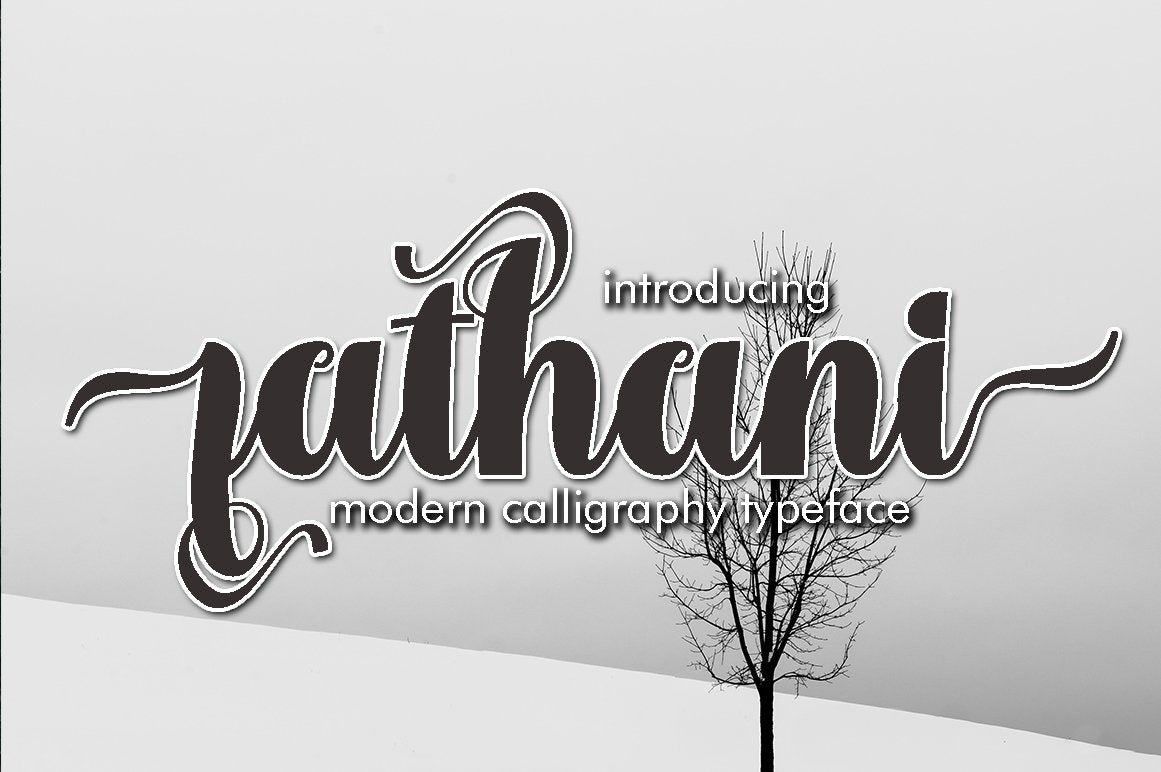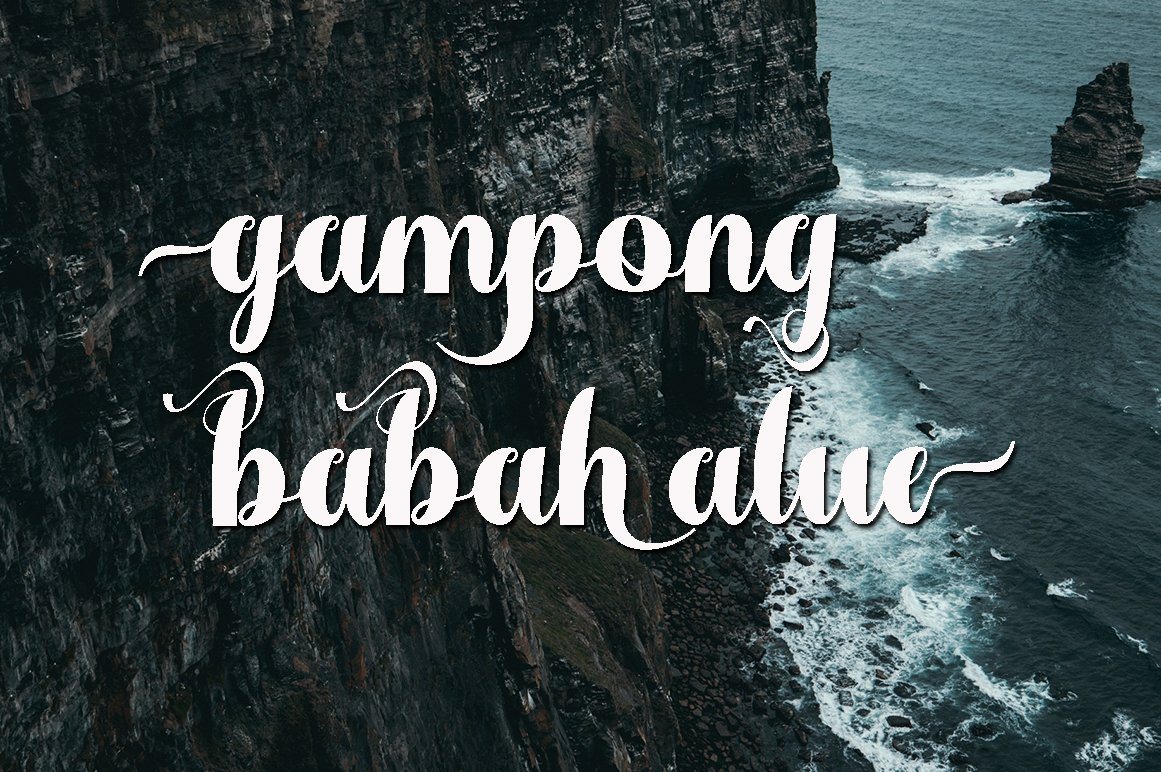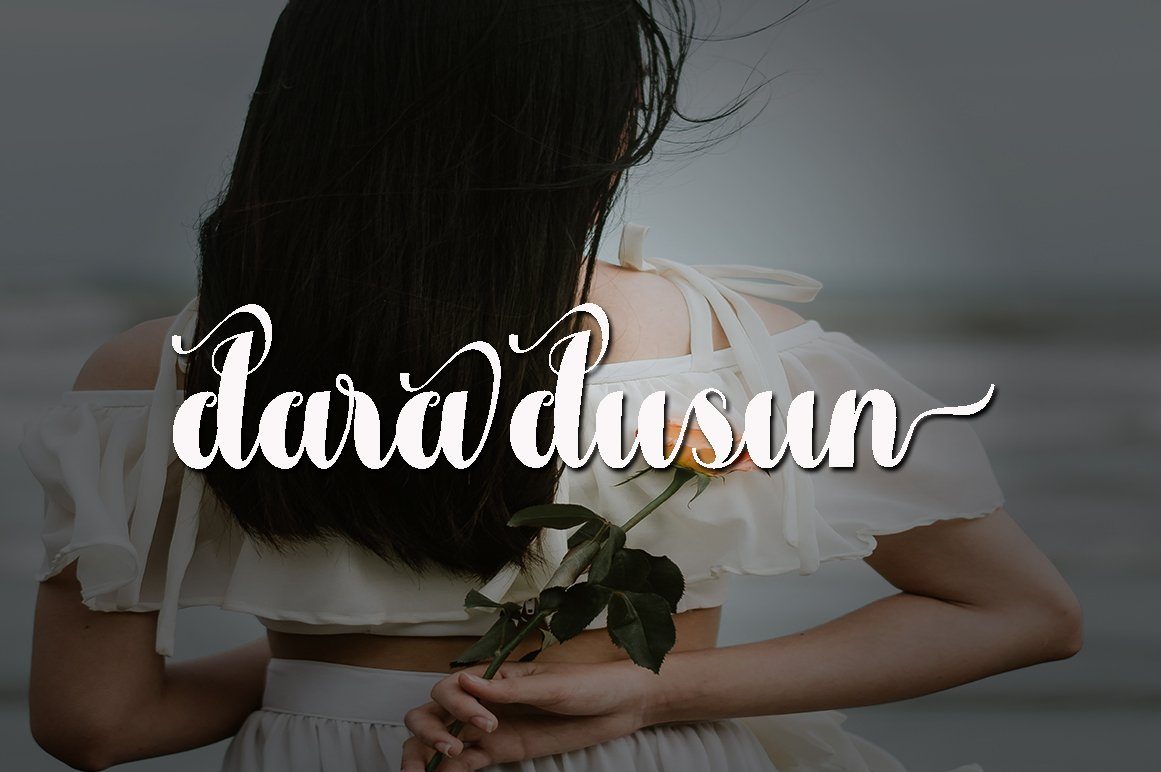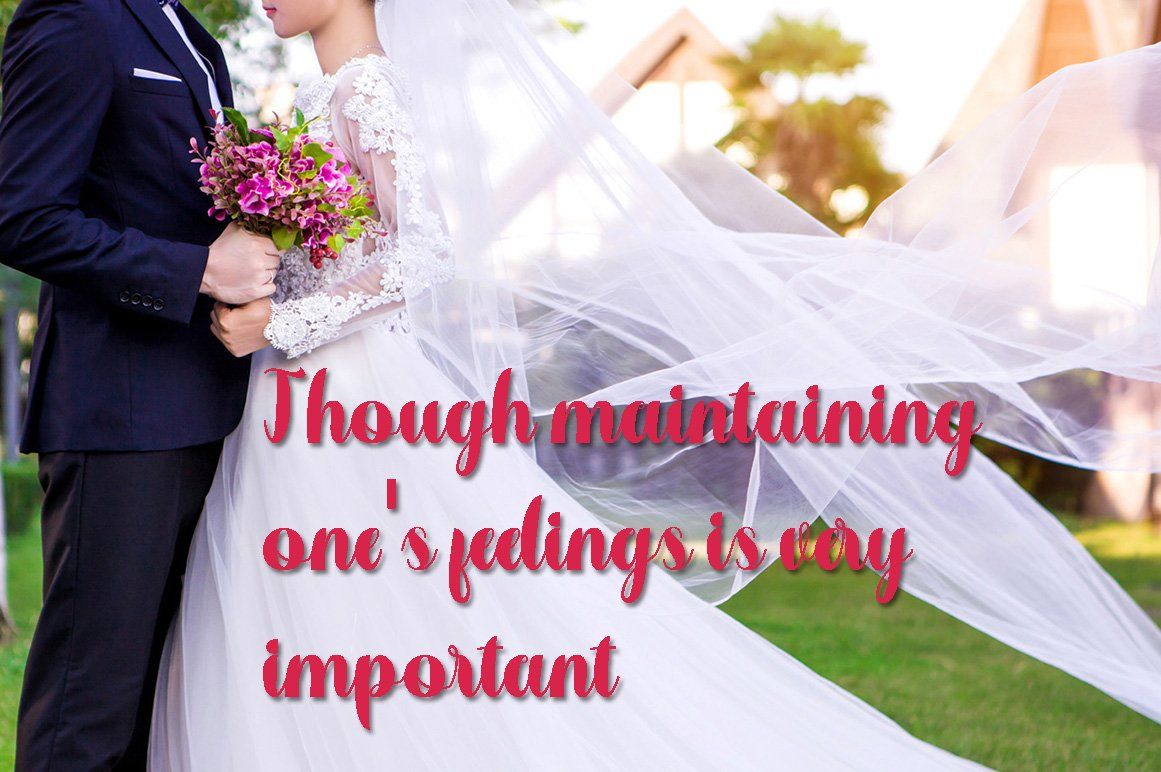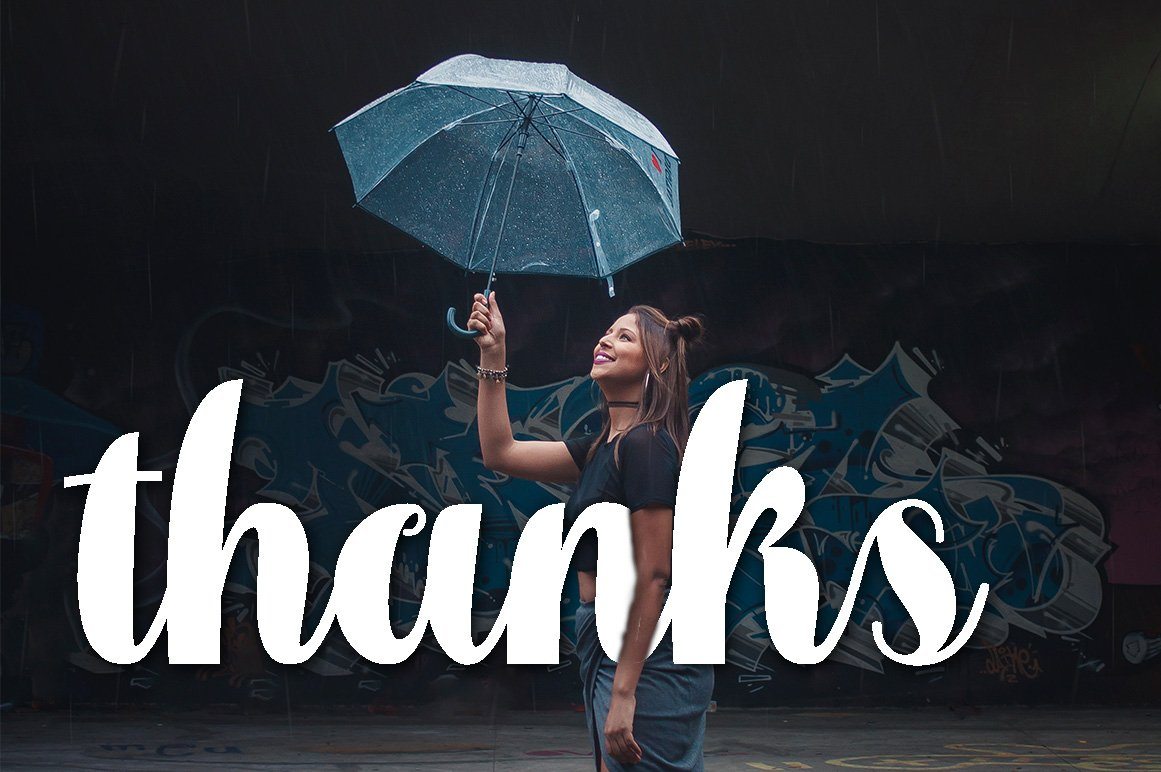
Fathani
About Fathani
Fathani Modern Calligraphy. This font was designed by handwriting, and it has a modern and unique forms of calligraphy, the writing style is very natural. The Features of this fonts is; Standart ligatures Stylistic Alternates Contextual Alternates Stylistic sets File font Loveline Include; Fathani OTF Fathani TTF Fathani PUA Unicode (Private Use Areas) Programs that support in this font is a Photo Shop, Adobe Illustrator, Adobe Indesign, Corel Draw and Microsoft Office. Can be used for various purposes.such as headings, logos, wedding invitation, t-shirt, letterhead, signage, lable, news, posters, badges etc. To enable the OpenType Stylistic alternates, you need a program that supports OpenType features such as Adobe Illustrator CS, Adobe Indesign & CorelDraw X6-X7 Fathani Modern Calligraphy. This font was designed by handwriting, and it has a modern and unique forms of calligraphy, the writing style is very natural. The Features of this fonts is; Standart ligatures Stylistic Alternates Contextual Alternates Stylistic sets File font Loveline Include; Fathani OTF Fathani TTF Fathani PUA Unicode (Private Use Areas) Programs that support in this font is a Photo Shop, Adobe Illustrator, Adobe Indesign, Corel Draw and Microsoft Office. Can be used for various purposes.such as headings, logos, wedding invitation, t-shirt, letterhead, signage, lable, news, posters, badges etc. To enable the OpenType Stylistic alternates, you need a program that supports OpenType features such as Adobe Illustrator CS, Adobe Indesign & CorelDraw X6-X7 Fathani Modern Calligraphy. This font was designed by handwriting, and it has a modern and unique forms of calligraphy, the writing style is very natural. The Features of this fonts is; Standart ligatures Stylistic Alternates Contextual Alternates Stylistic sets File font Loveline Include; Fathani OTF Fathani TTF Fathani PUA Unicode (Private Use Areas) Programs that support in this font is a Photo Shop, Adobe Illustrator, Adobe Indesign, Corel Draw and Microsoft Office. Can be used for various purposes.such as headings, logos, wedding invitation, t-shirt, letterhead, signage, lable, news, posters, badges etc. To enable the OpenType Stylistic alternates, you need a program that supports OpenType features such as Adobe Illustrator CS, Adobe Indesign & CorelDraw X6-X7 Fathani Modern Calligraphy. This font was designed by handwriting, and it has a modern and unique forms of calligraphy, the writing style is very natural. The Features of this fonts is; Standart ligatures Stylistic Alternates Contextual Alternates Stylistic sets File font Loveline Include; Fathani OTF Fathani TTF Fathani PUA Unicode (Private Use Areas) Programs that support in this font is a Photo Shop, Adobe Illustrator, Adobe Indesign, Corel Draw and Microsoft Office. Can be used for various purposes.such as headings, logos, wedding invitation, t-shirt, letterhead, signage, lable, news, posters, badges etc. To enable the OpenType Stylistic alternates, you need a program that supports OpenType features such as Adobe Illustrator CS, Adobe Indesign & CorelDraw X6-X7